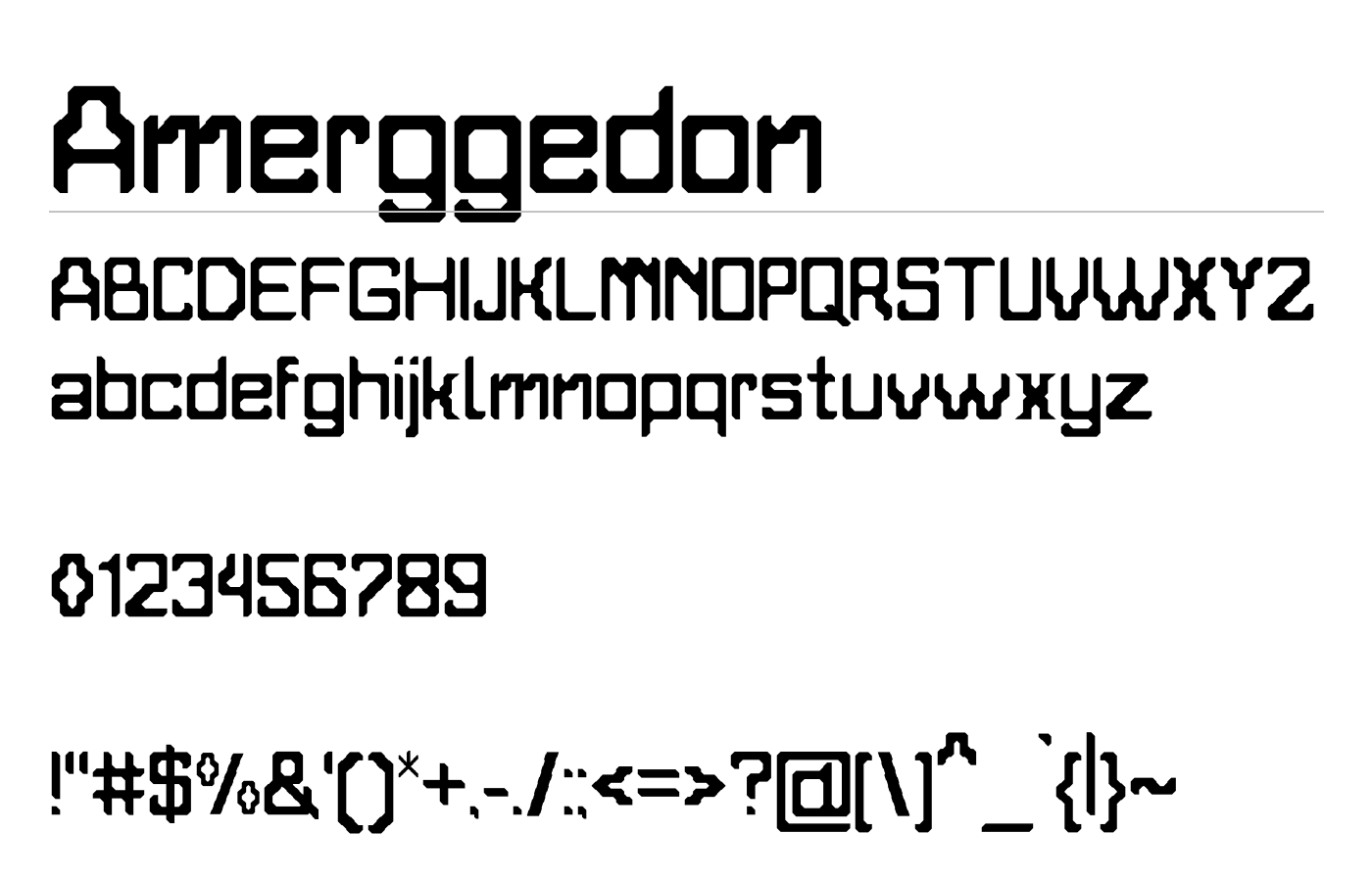
Amerggedon is a bold, geometric sans serif font with a futuristic and mechanical feel, characterized by its distinct angular and octagonal shapes. Its uniform stroke weight and tight spacing create a compact, tech-inspired look that works well for digital projects, branding, and headlines where a modern, edgy style is desired. This font’s unique, almost robotic design makes it ideal for sci-fi themes, gaming, and any design seeking a strong, mechanical presence.
Amerggedon Font
About Amerggedon Font